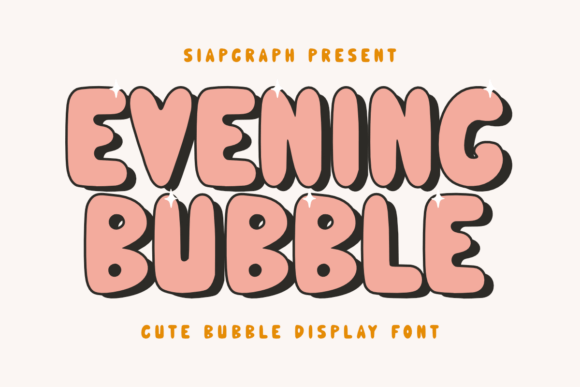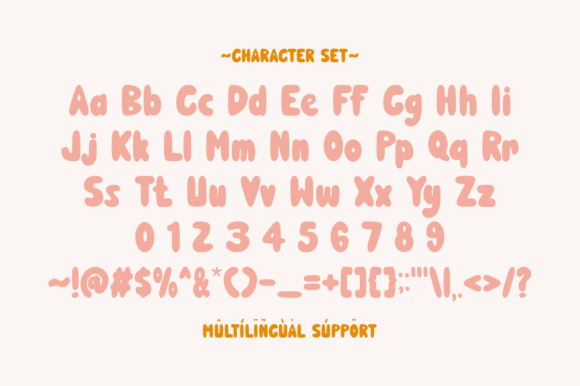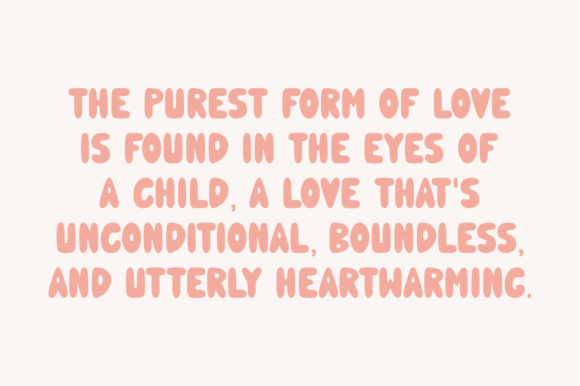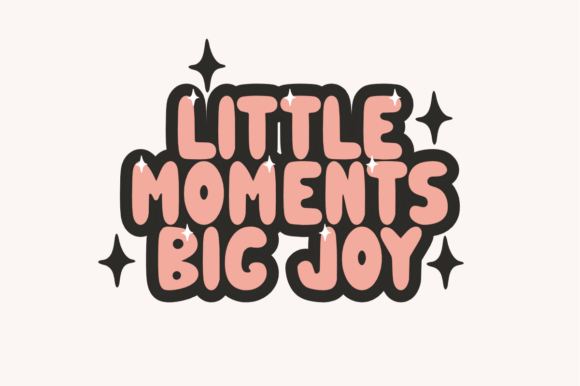
Evening Bubble Font
About the Evening Bubble Font
Discover the charm of Evening Bubble Font. This font is a perfect blend of modern aesthetics and classic appeal. Bring your ideas to life with Evening Bubble, a charming and cute bubble font that exudes playfulness! Its soft curves and bold appearance are perfect for creating eye-catching headlines, posters, social media graphics, and branding. Add a dreamy touch to your designs with this delightful font that’s both fun and versatile.
Evening Bubble’s playful charm makes it ideal for children’s books, playful branding projects, invitations, and social media content where a lighthearted and approachable feel is desired. However, its rounded forms and relatively large x-height make it less suitable for body text or UI elements requiring high readability at smaller sizes. Avoid using it for lengthy paragraphs or applications demanding clear legibility.
Pairing Evening Bubble effectively depends on the desired overall aesthetic. For a balanced contrast, consider pairing it with a clean sans-serif like Open Sans for body copy or a more geometric sans-serif like Futura for a modern edge. A delicate script font could add a touch of elegance, while a sturdy serif like Playfair Display could provide a sophisticated counterpoint.
Its core personality is undeniably cheerful and friendly, yet possesses a boldness that prevents it from appearing childish. This makes it well-suited to brands targeting a younger demographic or those seeking to convey a sense of fun and approachability without sacrificing impact.
Evening Bubble Font Usage Examples
Evening Bubble Font Example